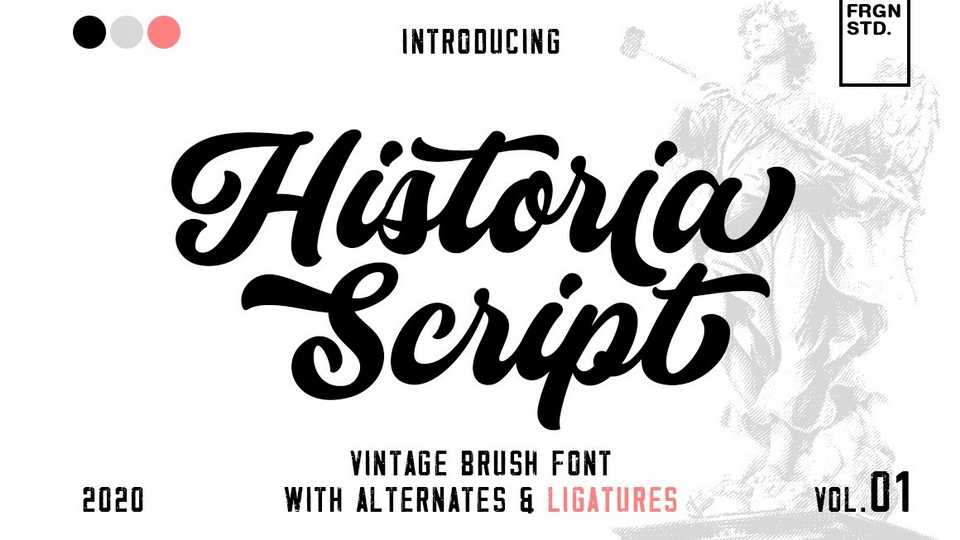
Download Historia Script, a stylish handwritten vintage font. Historia Script can be used for various purposes. such as headings, signature, logos, vintage wedding invitation, t-shirt, letterhead, signage, label, news, posters, badges etc.
Designer: Fargun Studio